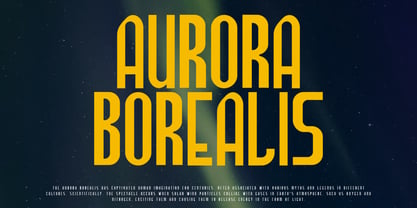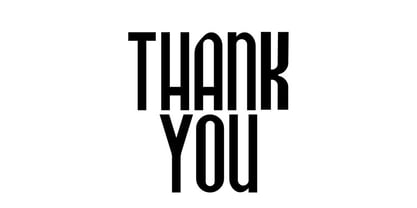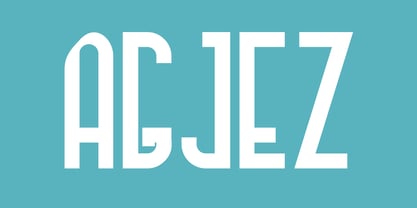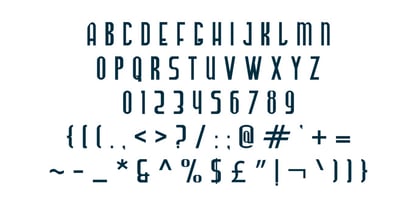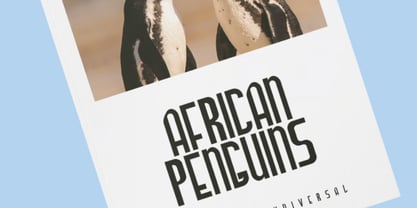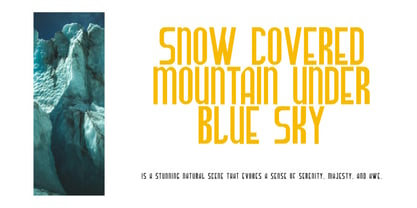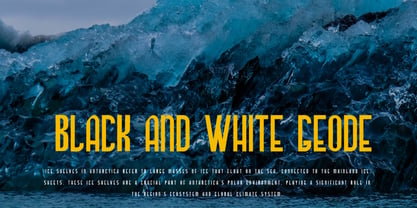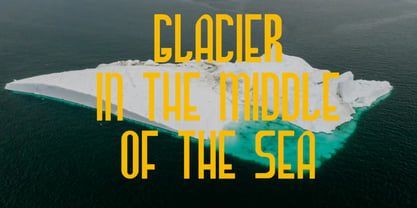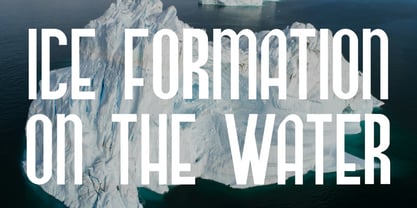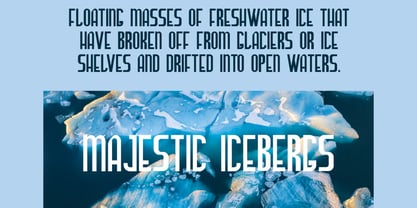
Agjez
Die Schriftfamilie Agjez wurde von Hasnat Khan entworfen und von Hasnat Studio veröffentlicht. Agjez enthält 1 Stile. Mehr über diese Familie
Agjez is a cutting-edge display font crafted to push creative boundaries with its sleek geometry, sharp lines, and high-tech aesthetic. Drawing inspiration from science fiction, digital innovation, and modern technology, Agjez offers a bold and forward-thinking visual identity that elevates any design project. Its clean, angular structure and innovative letterforms evoke a sense of movement, precision, and progress, making it an ideal choice for designers aiming to convey modernity and advanced thinking. Whether you're engaged in tech branding, app interfaces, digital dashboards, gaming designs, sci-fi posters, website headers, product packaging, or experimental visuals, Agjez infuses a striking, futuristic edge that stands out in today’s competitive design landscape. ✿ Key Features: - Futuristic Geometric Design: Sharp, angular shapes inspired by sci-fi aesthetics. - Clean & Modern Letterforms: Perfect for tech-driven projects and sleek digital visuals. - Innovative & Bold Style: A cutting-edge typeface for standout creative work. - Uppercase & Lowercase: Complete character set for flexible usage. - Numbers & Punctuation: Fully equipped for professional typography. - Multilingual Support: Includes accented characters for global compatibility. - High-Quality Craftsmanship: Smooth outlines and crisp geometry for flawless display results. ✿ Perfect For: - Tech & Startup Branding: Craft strong, innovative brand identities. - UI/UX & App Design: Ideal for futuristic interfaces and digital systems. - Gaming & Sci-Fi Projects: Perfect for cyber, neon, techno, and sci-fi visuals. - Posters & Advertising: Achieve high-impact, modern promotional materials. - Web & Digital Graphics: Clean and sharp for websites, banners, and social media. - Experimental Design: Great for creative explorations, titles, and conceptual visuals. Step into the future of design with Agjez—a bold and innovative futuristic font designed to empower modern, high-tech creative projects with style and precision.